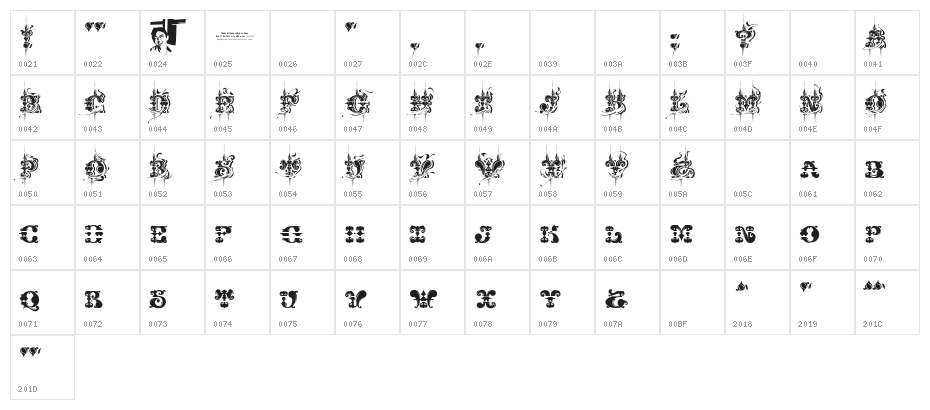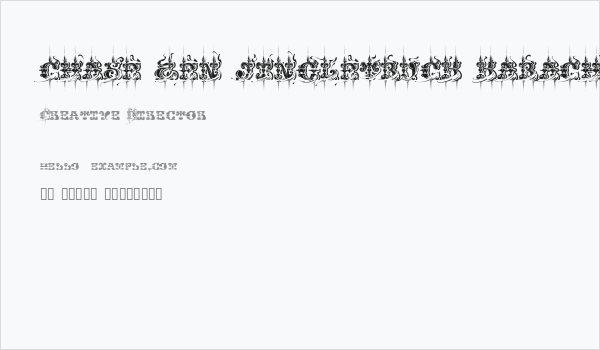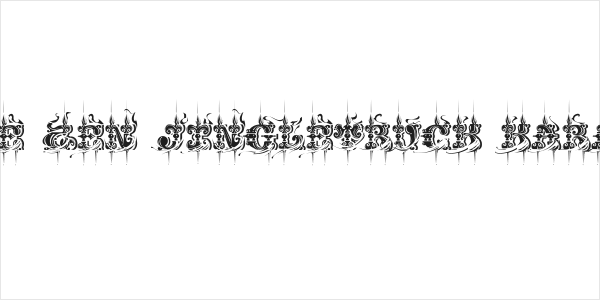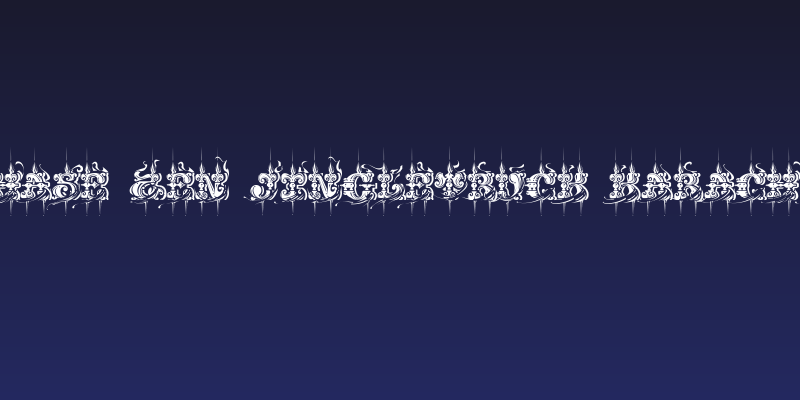
CHASE ZEN JINGLETRUCK KARACHI Font
CHASE ZEN JINGLETRUCK KARACHI Description
This font is a highly decorative and intricate typeface, inspired by traditional truck art from Karachi. It features elaborate embellishments and flourishes that extend from each character, creating a sense of movement and vibrancy. The uppercase letters are bold and ornate, with detailed patterns that evoke a sense of cultural richness. The font's unique style is reminiscent of handcrafted artistry, making it stand out as a statement piece. The design is both playful and sophisticated, capturing the essence of a vibrant artistic tradition.
| Proposed Projects | Ideal for cultural event posters, artistic branding, and decorative signage. |